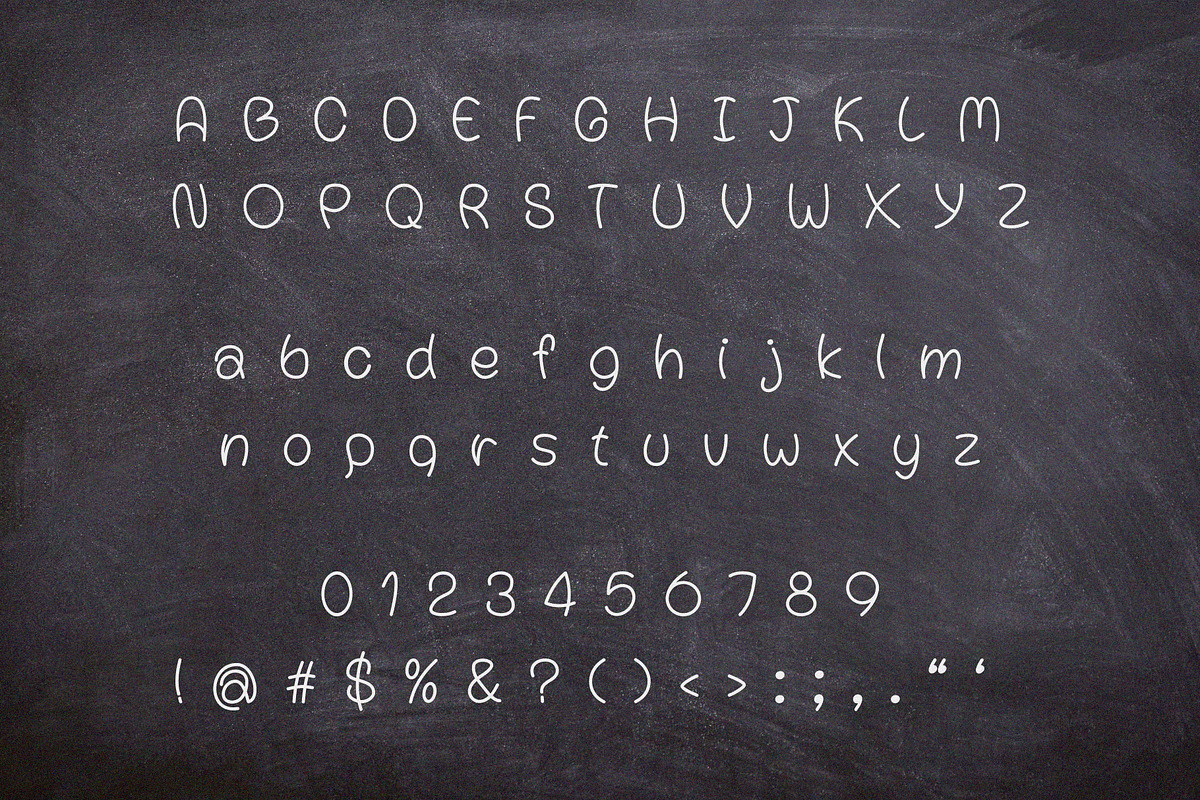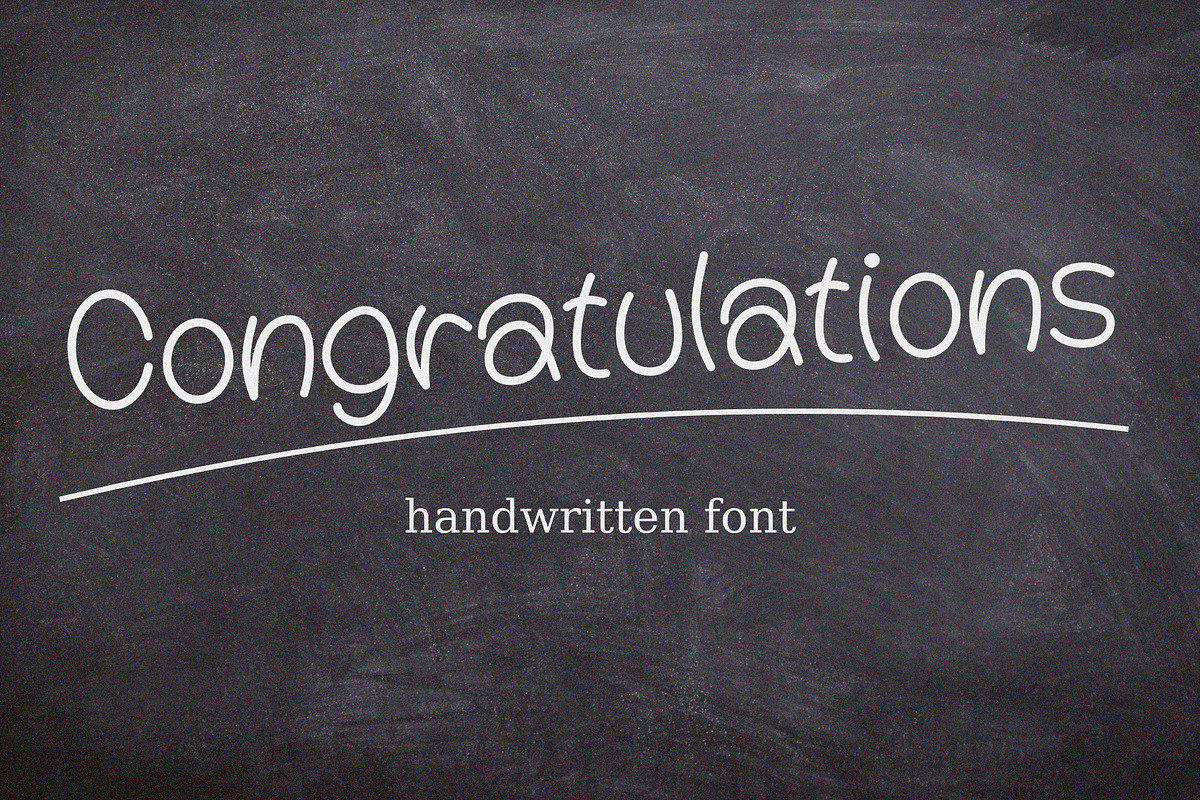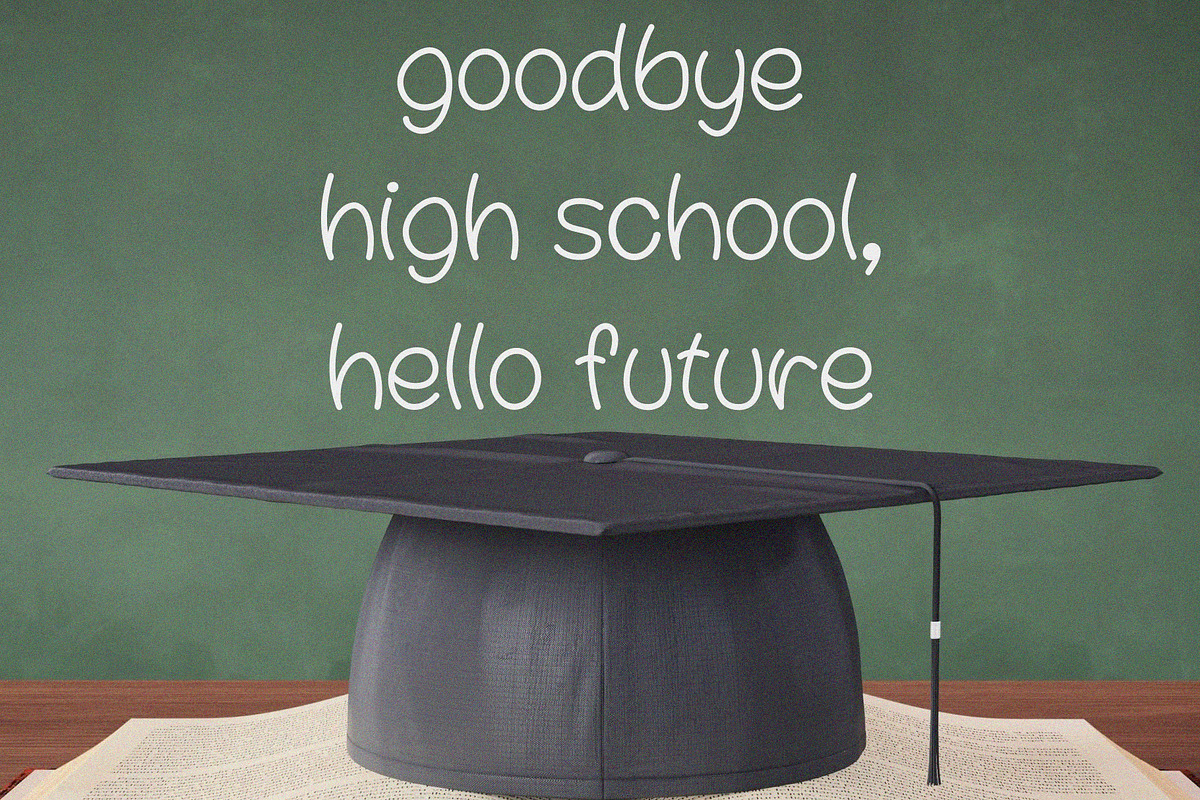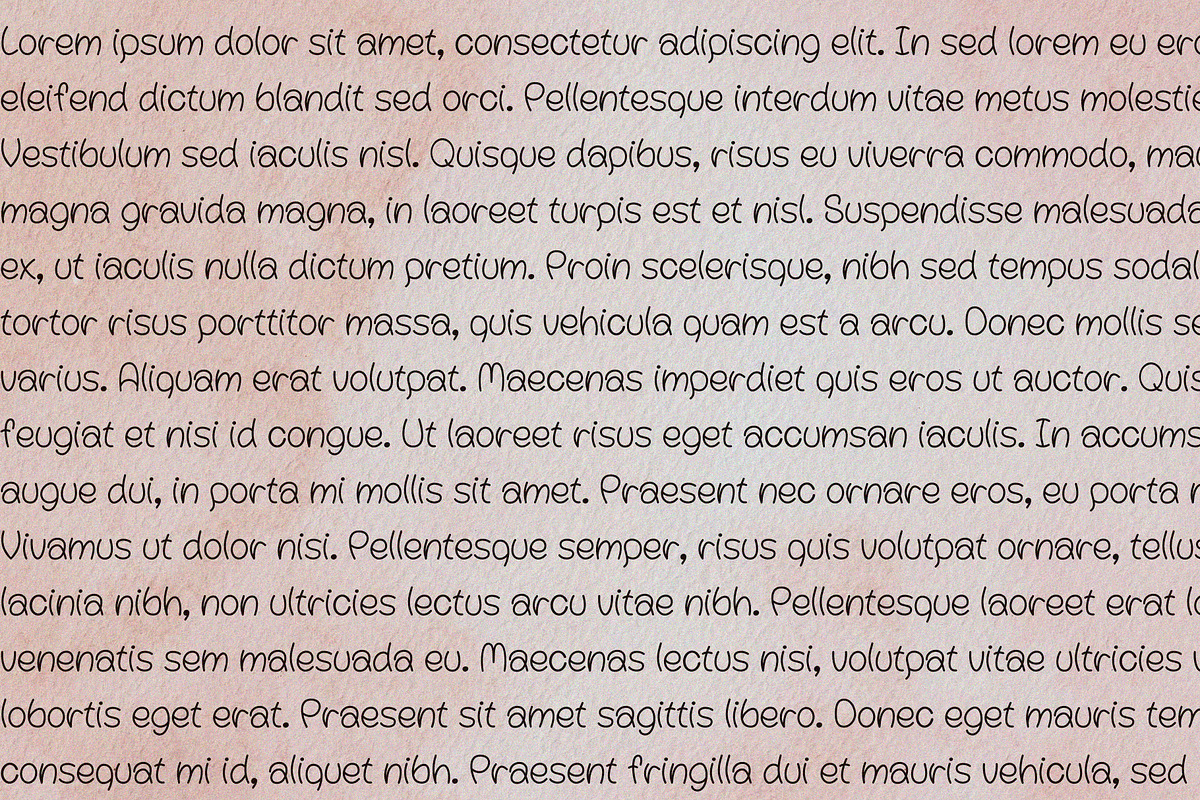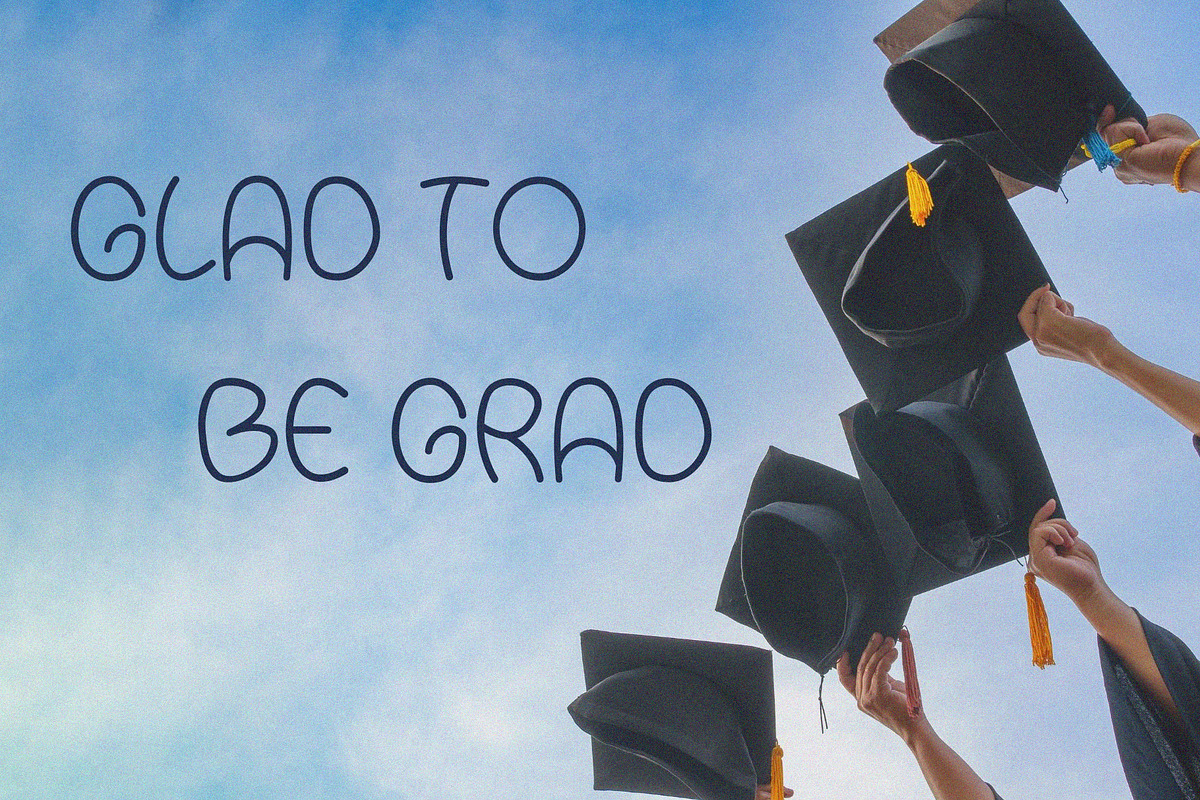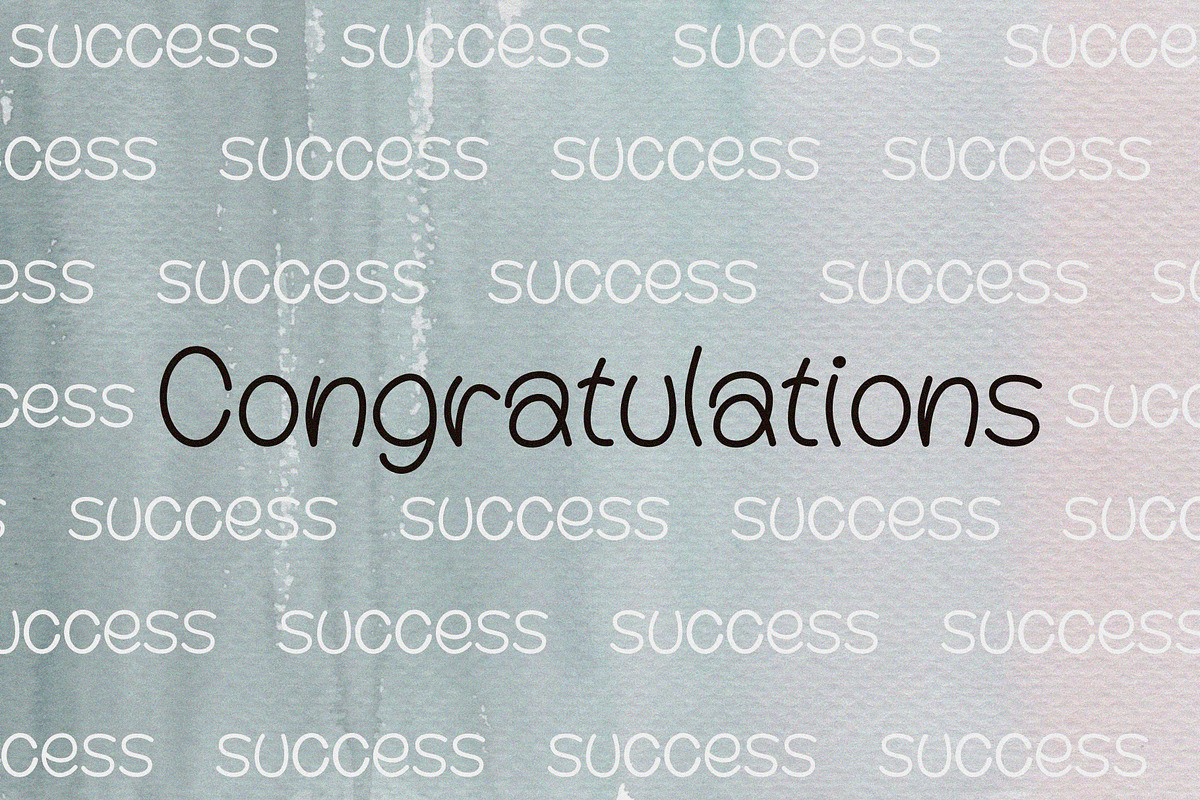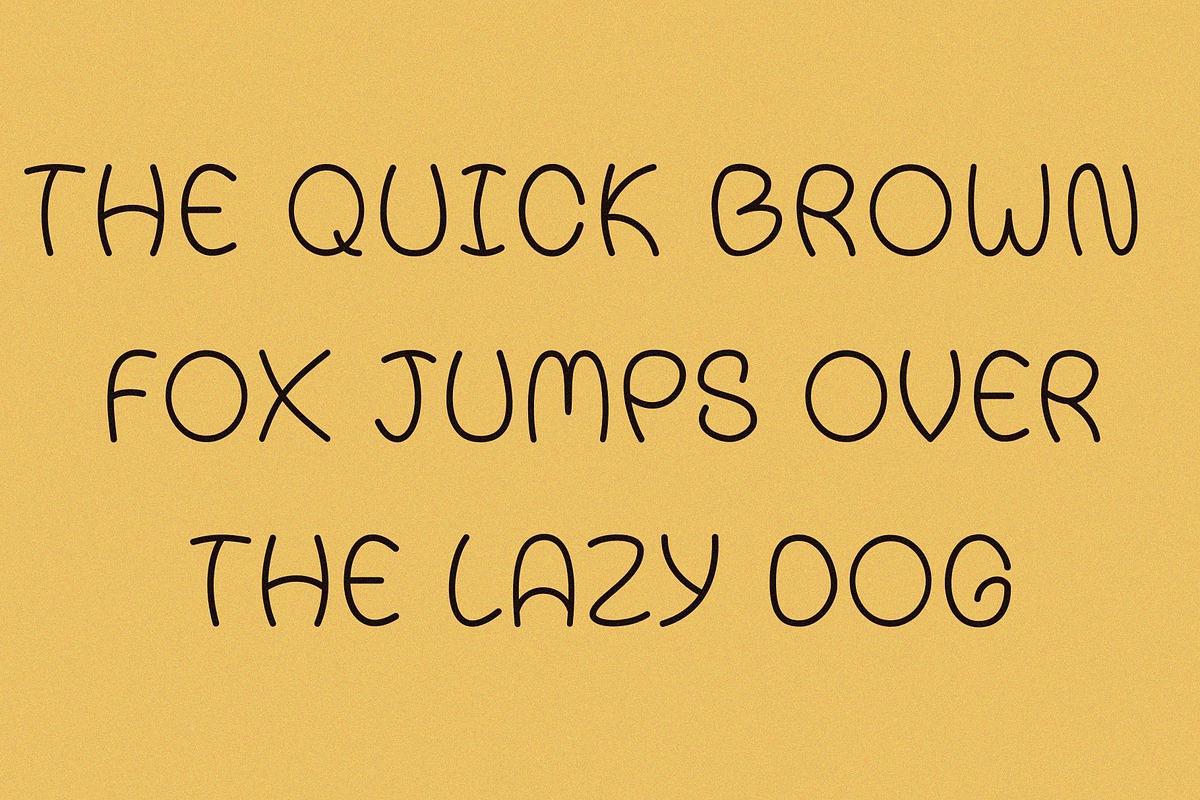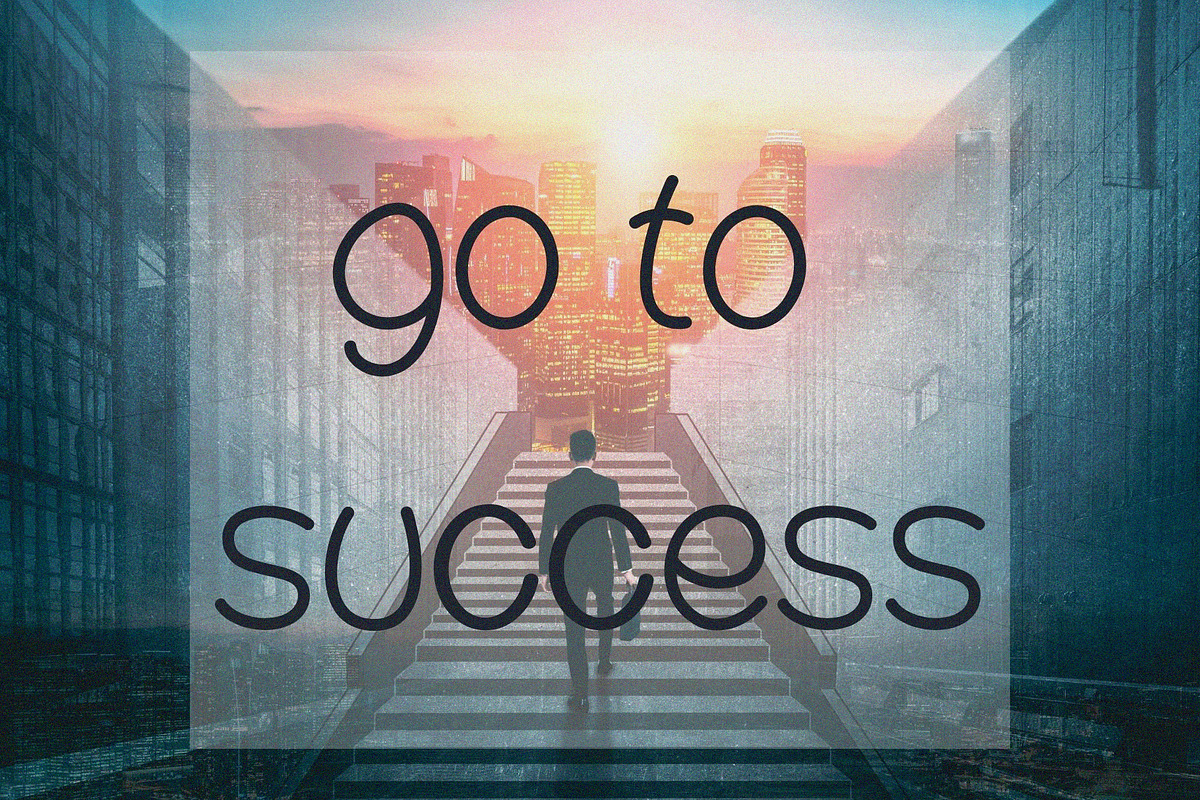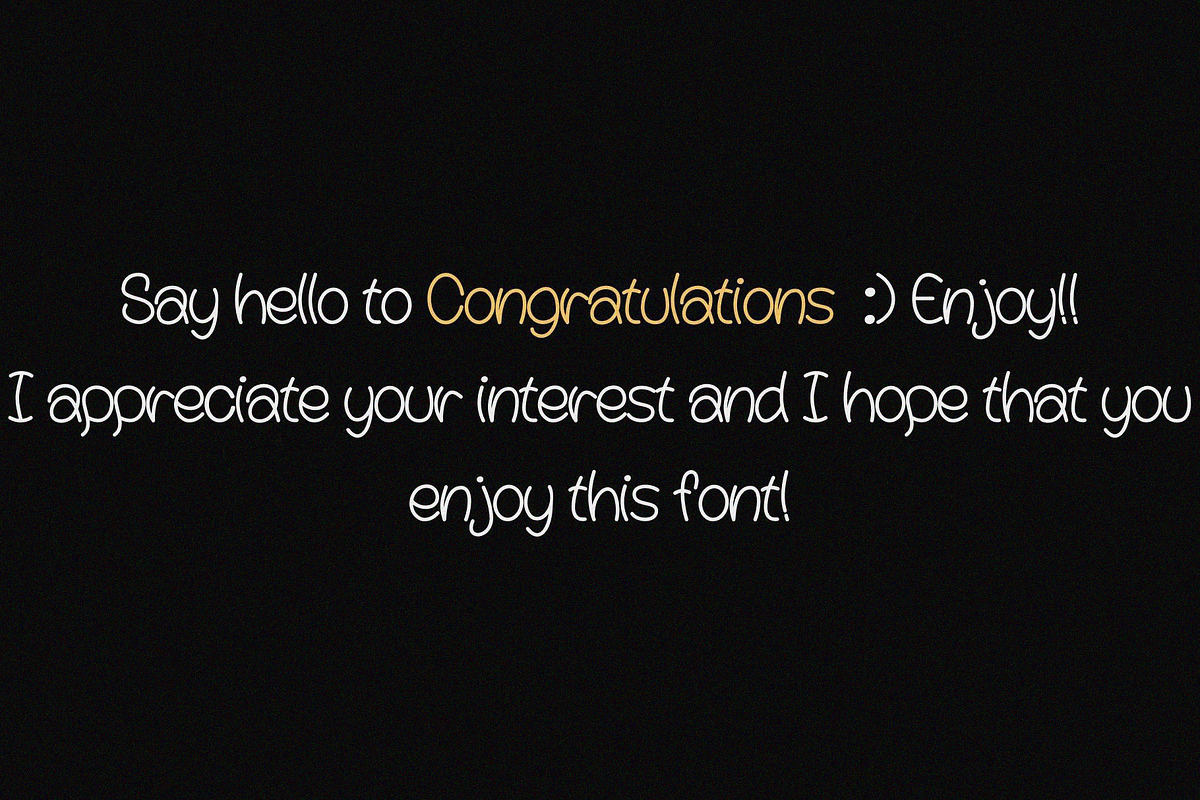
Congratulations Handwritten Font
Congratulations Handwriting font that can be used within your documents for commercial and personal use! We design our fonts to have a simple.
Perfectly suitable for numerous uses such as digital note-taking, digital planners, quotations, banners, logos, product packaging, titles, headers, menu lists, etc.
Notes- This fonts include capital/lowercase letters and basic symbols.